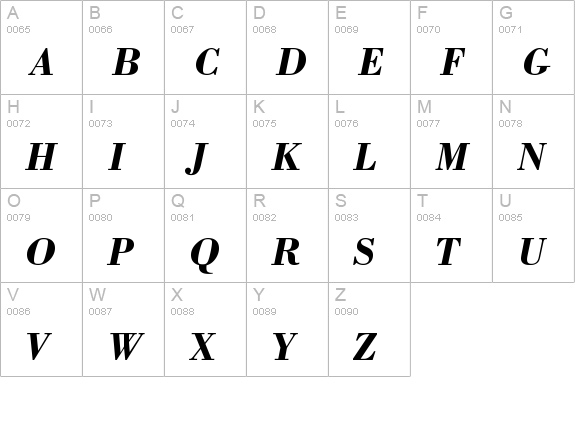
Bodoni Bold Italic Font Details
Bodoni Bold Italic is a strong, high-contrast, italic variant in the Bodoni typeface family \xE2\x80\x94 well suited to headlines, attention-grabbing titles, and strong calls-to-action.
Bodoni Bold Italic font exudes elegance and sophistication with its sleek and refined design. The combination of bold weight and italic style creates a striking contrast that demands attention. This timeless typeface is perfect for adding a touch of luxury to any design project, whether it be for print or digital use. The Bodoni Bold Italic font is a versatile choice that can be used for a variety of purposes, from headlines to body text. Its sharp serifs and graceful curves give it a distinctive look that is both classic and modern. The bold weight of the font adds a sense of strength and authority, making it ideal for making a bold statement. Best of all, the Bodoni Bold Italic font is available for free download at FontsMarket.com. This means you can easily access this high-quality typeface without any cost, making it a valuable resource for designers and creatives alike. Don't miss out on the opportunity to enhance your projects with the timeless beauty of Bodoni Bold Italic font.